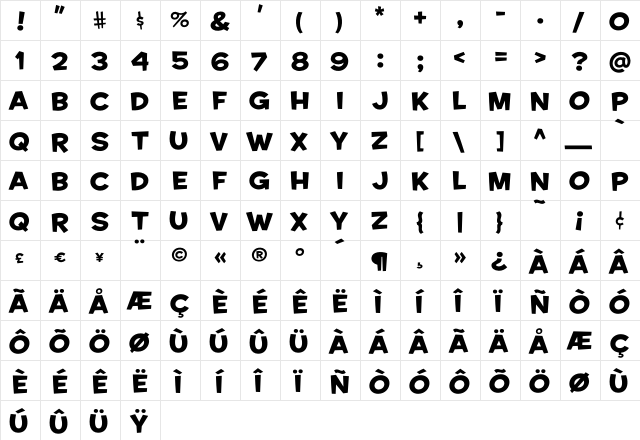
House-A-Rama Kingpin
Design Context for House-A-Rama Typeface
House-A-Rama is a composed and adaptable typeface that performs quietly and consistently across a wide range of design contexts.